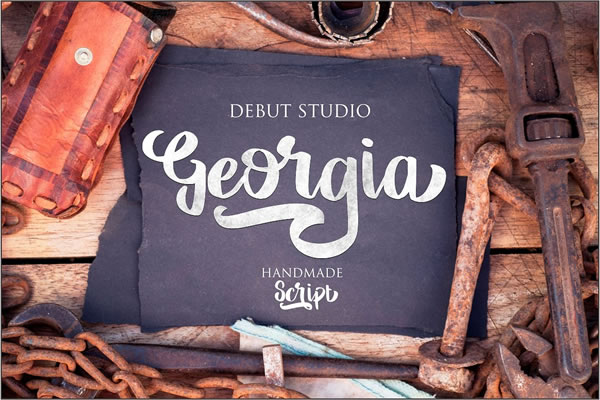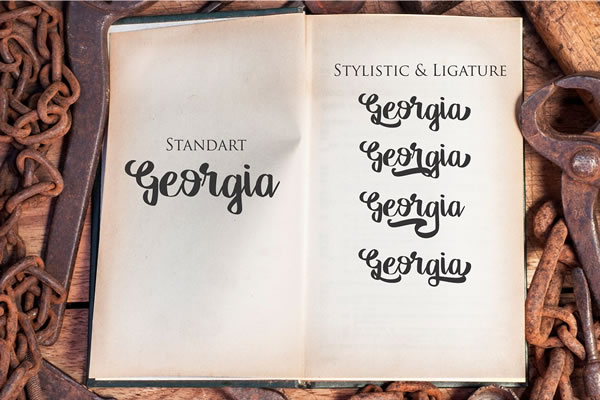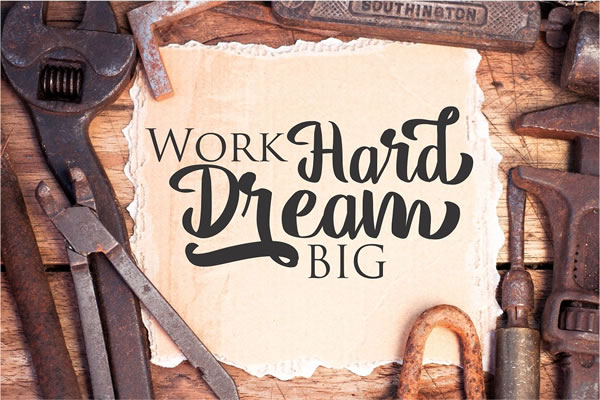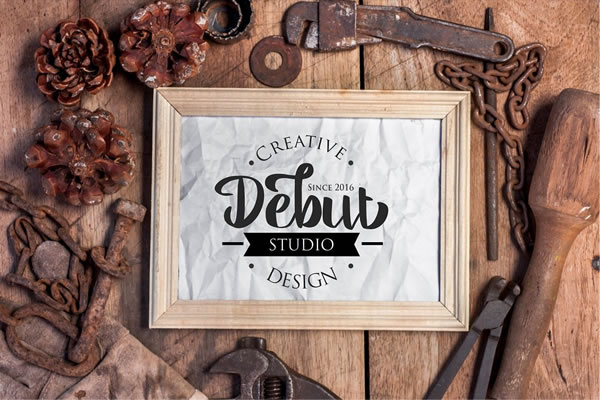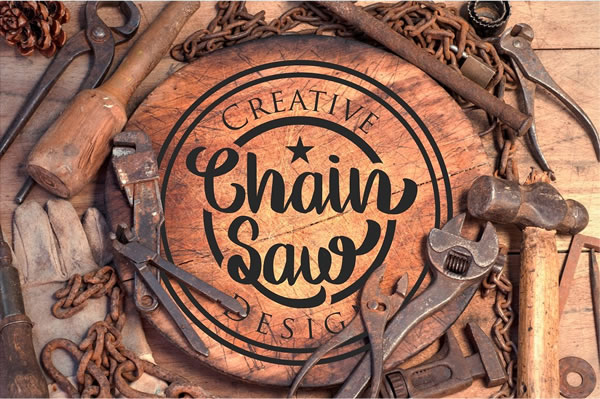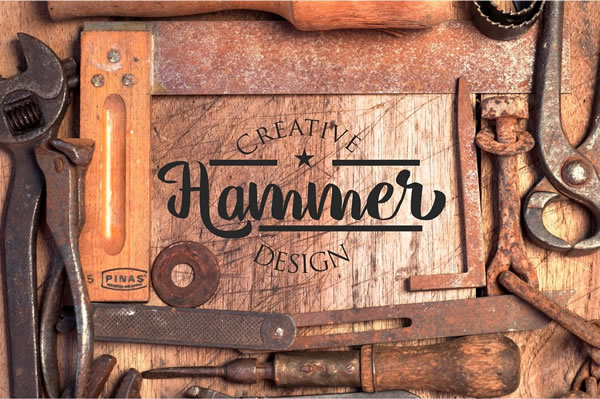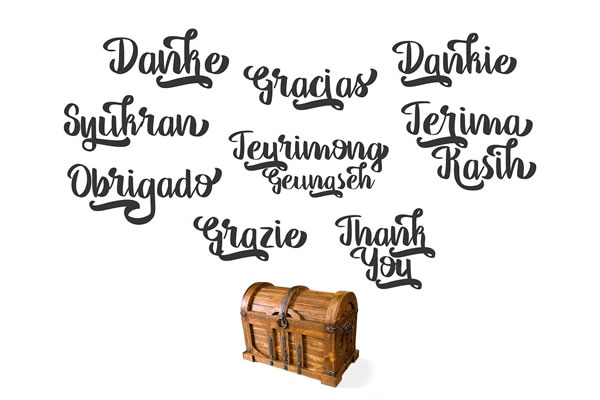
HomeScript FontsGeorgia Font Script Fonts Georgia Font FacebookXPinterestWhatsApp Georgia Font Poster 2 Georgia Font Poster 3 Georgia Font Poster 4 Georgia Font Poster 5 Georgia Font Poster 6 Georgia Font Poster 7 About Georgia Font Georgia Script is a retro looking hand-brushed font. DOWNLOAD ON CREATIVE FABRICAThis font is sold and delivered by Creative Fabrica. Font Canyon may earn a commission if you buy through this link. People also explored November Rain Font Franken Jr Pro Saturday Font Aryaduta Font Rainbow Colors Font Billion Calligraphy Font Silver Soul Font Practice Makes Perfect Font The Knicks Fly Font 338 0 TagsGeorgia Font Previous articleAmastery FontNext articleDelima Font LEAVE A REPLY Cancel reply Comment: Please enter your comment! Name:* Please enter your name here Email:* You have entered an incorrect email address! Please enter your email address here Website: Save my name, email, and website in this browser for the next time I comment. Personal Use Free DoooLA Personal Use Free Read more about this font Doriss Girls Family Personal Use Free Read more about this font Expaing Personal Use Free Read more about this font Mixed Artistry Personal Use Free Read more about this font BLOG Free vs Paid Fonts: Why Investing in Premium Fonts Is Worth It Free vs Paid Fonts: Why Premium Fonts Are Worth It in 2025 The debate of free vs paid fonts continues in the design world. While... Where to Buy American Fonts Online in 2024 To increase your work productivity, choose the most readable fonts. Modern Sans-Serif Fonts That Brands Love in 2025